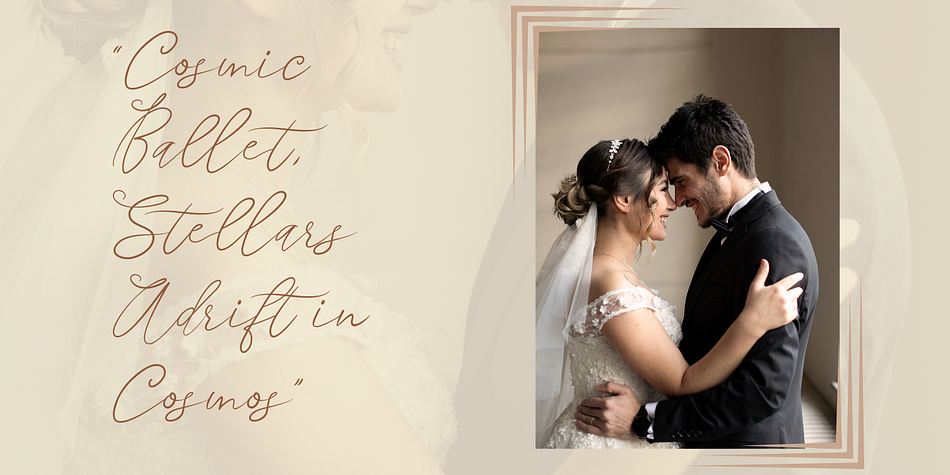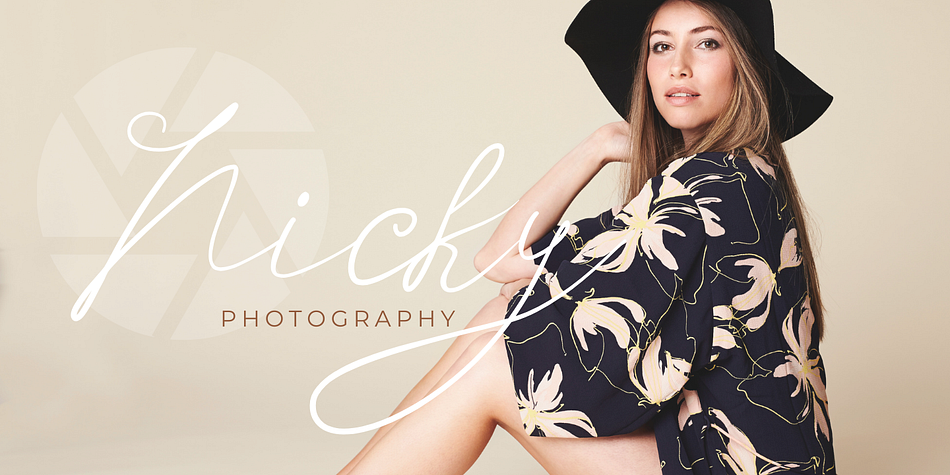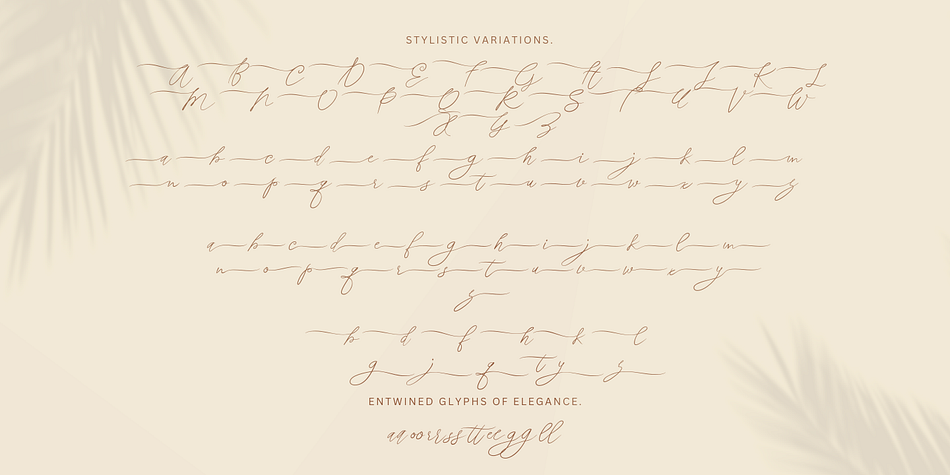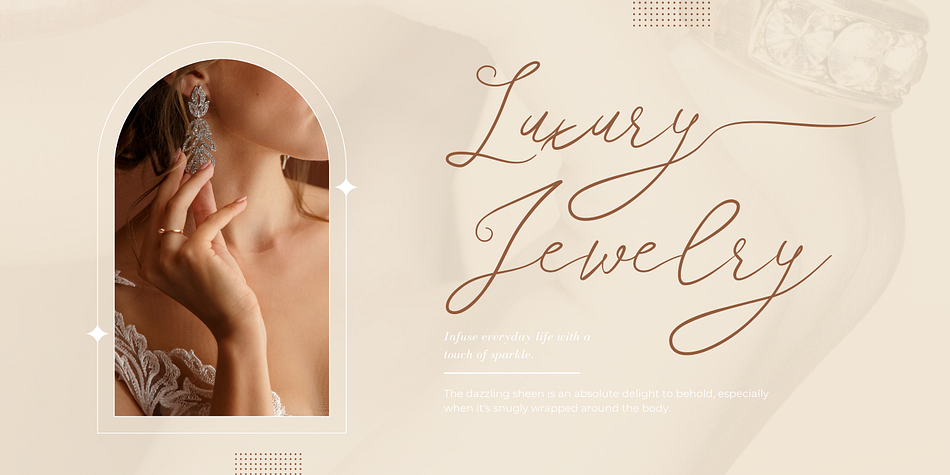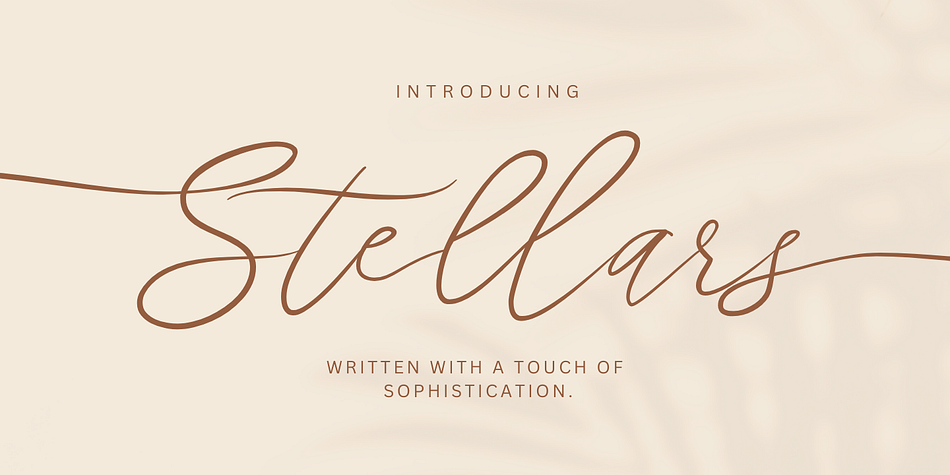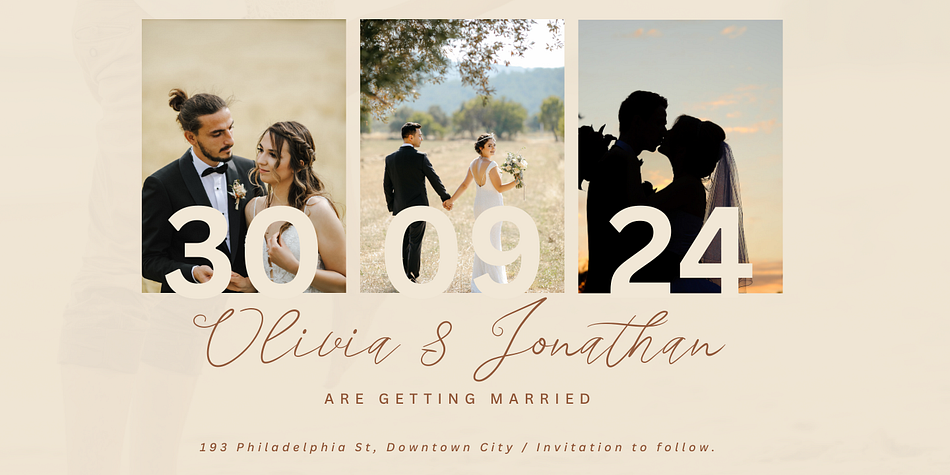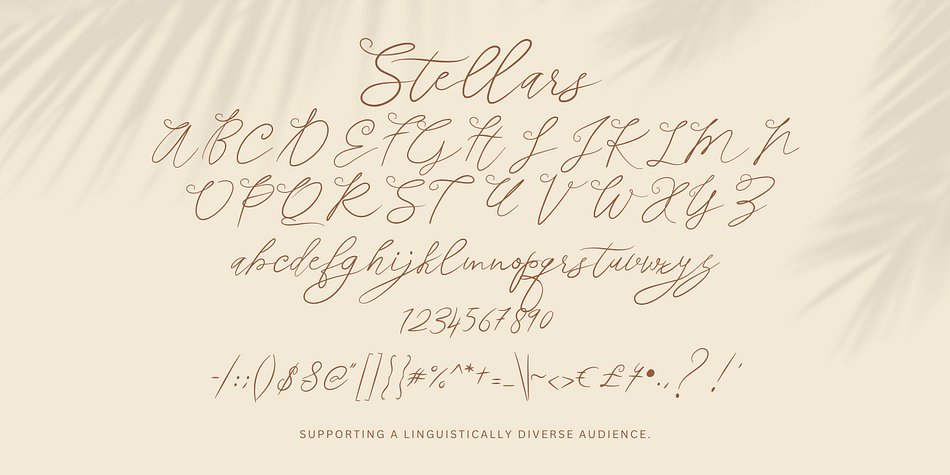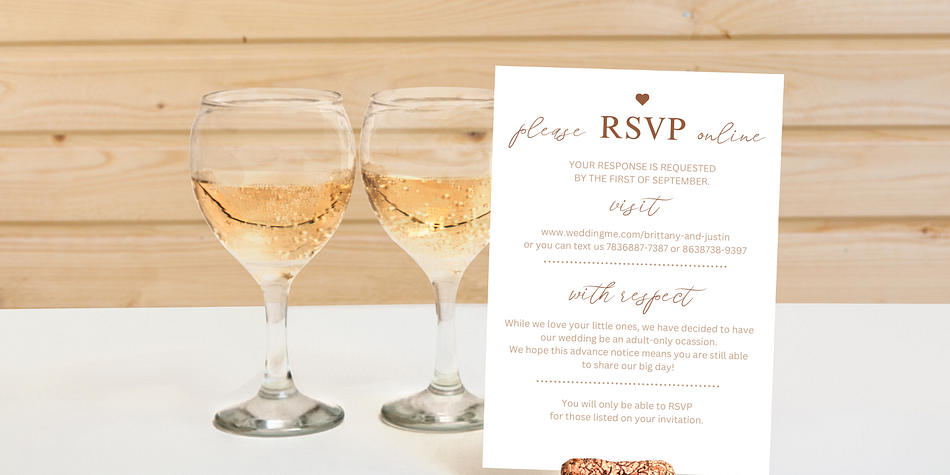
Stellars
Stellars is a modern calligraphy font family published by Gatype.
Introducing the exquisite Stellars handwritten script font! Elevate your designs with a blend of grace and contemporary flair. Crafted for creators seeking a touch of sophistication, this font offers a seamless fusion of beauty and modernity.
Stellars boasts a wealth of OpenType features, including stylish swashes at the beginning and end of words, unique alternate characters for most lowercase letters, numerals, punctuation, alternates, ligatures, and support for various languages. With Stellars, you can bring a captivating touch to branding, invitations, social media, and more. Experience design innovation with Stellars!